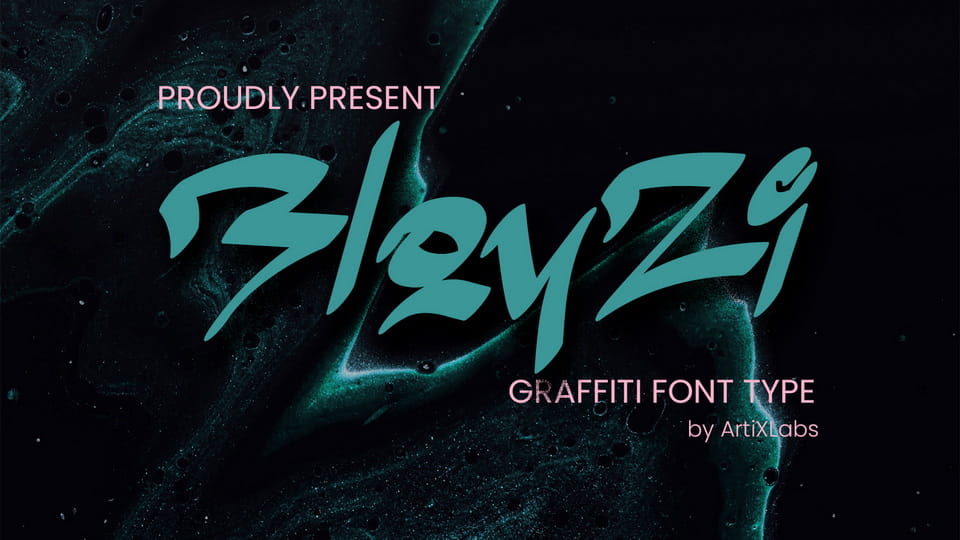
Download BloyZi font, a modern graffiti brush typeface that blends smooth handwritten flow with bold street character. Its expressive strokes and energetic style make it perfect for urban branding